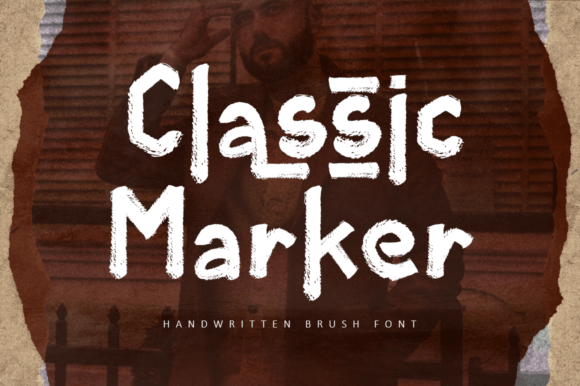
Unleash Your Creativity with Classic Marker Font
Have you ever found yourself stuck in a design rut, yearning for that perfect touch to elevate your project from meh to mesmerizing? You’re not alone! We’ve all been there, searching for that elusive magic that makes our designs truly stand out. And that’s exactly where the Classic Marker Font comes in – a game-changing, cool and modern handwritten brush font that’s about to revolutionize your design workflow.
With its unique blend of elegance and playfulness, the Classic Marker Font is the perfect addition to any project. Whether you’re a seasoned designer or just starting out, this font is sure to impress. Its versatility and ease of use make it an invaluable asset for designers looking to add a touch of personality to their work.
Classic Marker Font Key Features
- Unique Characteristics: The font features a distressed, hand-drawn appearance, with subtle imperfections and texture, giving it a unique and artistic feel.
- Line Art: Classic Marker Font is designed with line art in mind, with bold lines and clear shapes, making it ideal for use in illustrations, graphics, and signage.
- Legibility: Despite its distressed appearance, the font remains highly legible, even at small font sizes, making it suitable for use in body text and headings.
Designer Review: Classic Marker Font
I’ve had the chance to work with Classic Marker Font, and I must say it’s a decent choice for certain projects. Here are some things that work well: ✨
- Legibility: This font is incredibly easy to read, even at small sizes.
- Expressiveness: The font conveys a sense of hand-drawn charm, which can be perfect for creative or artistic projects.
- Lack of customization options: The font’s style is fixed, which can make it less versatile for complex designs.
- Not ideal for body text: While the font is great for headings or titles, it may not be the best choice for large blocks of body text.
Overall, Classic Marker Font is a solid choice for projects that require a touch of creativity and charm. While it may not be the best fit for every design, it’s definitely worth considering for the right projects.
Classic Marker Font is ideal for:
1. Creating playful and casual designs.
2. Adding a hand-drawn feel to digital content.
3. Designing children’s educational materials.
4. Creating social media graphics and advertisements.